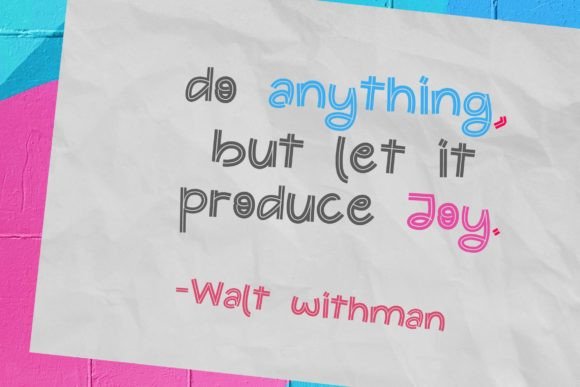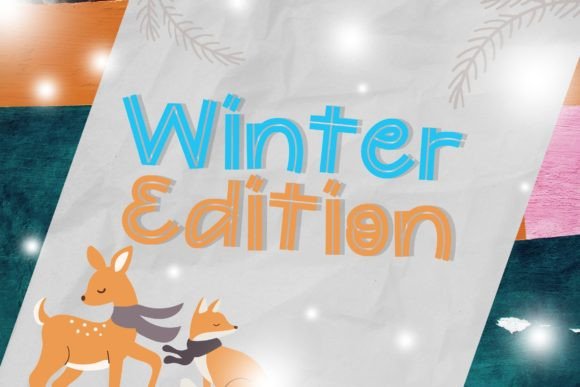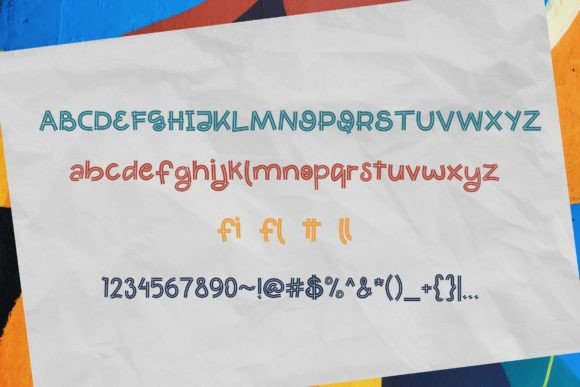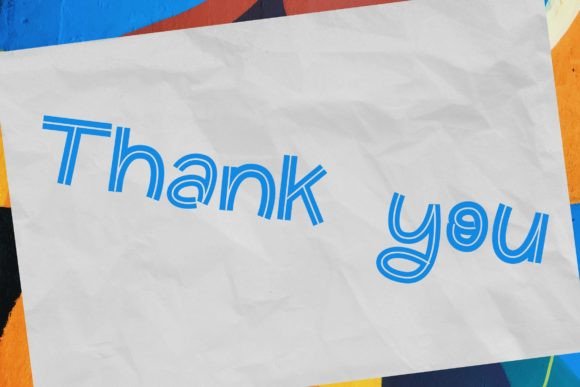
Introduction to Pllayeo Font
Do you remember that moment when you stumbled upon the perfect font for your creative project? It’s like finding a missing piece of a puzzle that makes everything fall into place. For designers, this moment is often the result of a long search, and when it finally happens, it’s pure magic. That’s exactly what you’ll experience with the Pllayeo Font – a display font that exudes fun and whimsy, making it perfect for adding a touch of personality to your designs.
Whether you’re working on a project that requires a bold statement or a subtle nuance, the Pllayeo Font has got you covered. With its incredibly versatile style, you can use it to create spectacular designs that will leave a lasting impression. Plus, with a transparent background, you can easily layer it with other design elements to achieve a high-quality look that’s truly unique.
Key Features of Pllayeo Font
- High-quality font design perfect for creative projects, offering a unique and elegant style.
- Features a transparent background, making it ideal for use on various design elements, including logos, icons, and graphics.
- Designed with a high level of detail and precision, ensuring a crisp and clear appearance at any resolution.
Honest Review: Pllayeo Font
As a designer, I’m always on the lookout for high-quality design resources that can elevate my creative projects. Recently, I came across the Pllayeo Font, and I’m excited to share my honest review with you.
The Pllayeo Font is a free download that offers a wide range of stylish and modern fonts. One of the standout features of this font is its transparent background, which makes it perfect for creating visually appealing graphics and designs.
- ✨ High-quality fonts with a modern and stylish design
- ⚠️ Limited font styles and variations
Overall, I’m impressed with the Pllayeo Font’s potential to enhance my creative projects. While it has some limitations, it’s a great design resource for smaller-scale projects or personal use. If you’re looking for a high-quality font with a modern design, I’d definitely recommend checking it out.
To maximize the potential of Pllayeo Font, experiment with different font sizes, colors, and styles to achieve a unique look. Combine it with other design elements to create a visually appealing design.
The Pllayeo Font is suitable for a wide range of applications, including branding, advertising, and editorial design. Its versatility and high quality make it an excellent choice for any creative project.